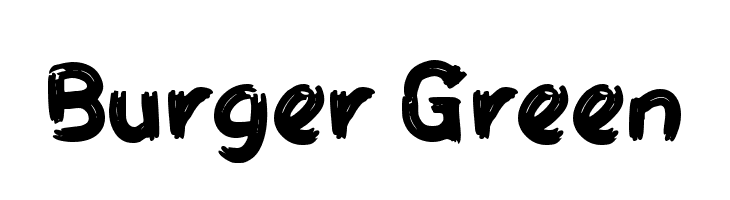
A bold, brush-style font with a playful, hand-painted appearance.
A playful, bold font with a hand-drawn, comic-like style.
A bold, playful handwritten font with a lively and energetic style.